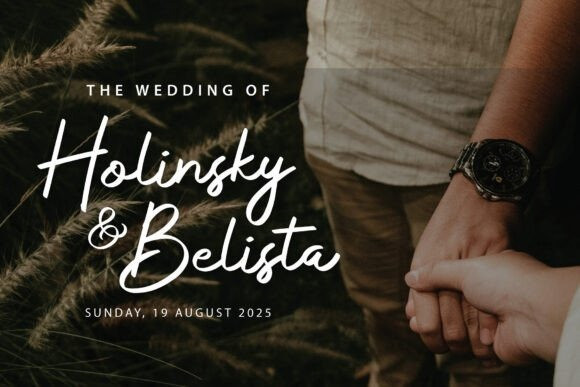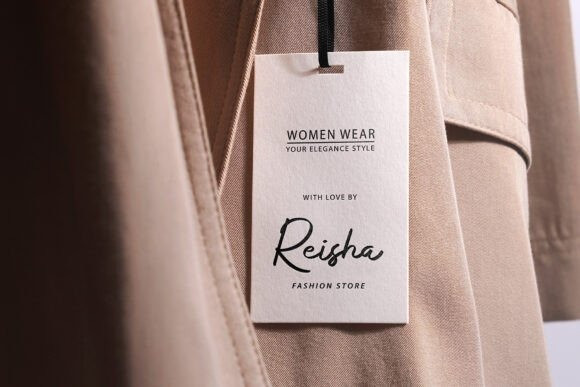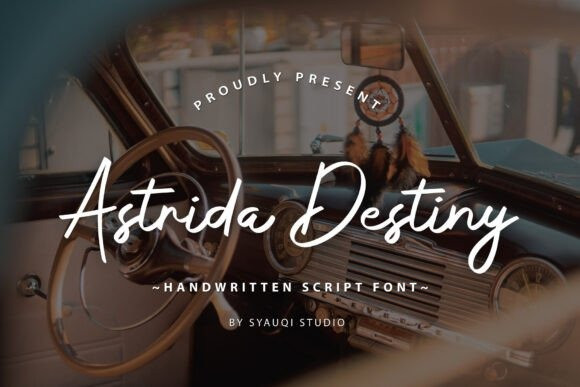
Astrida Destiny Script Font
Astrida Destiny Script Font where timeless elegance meets contemporary sophistication in the realm of script calligraphy fonts. Designed with meticulous attention to detail, Astrida Destiny seamlessly blends fluid, organic strokes with a touch of modernity, creating a typeface that exudes both grace and versatility.
“Astrida Destiny” is crafted to elevate any design project, whether it be wedding invitations, branding materials, elegant signage, or editorial layouts. Its graceful curves and impeccable letterforms lend a sense of refined beauty and sophistication, making it perfect for conveying a sense of luxury and exclusivity.
Ideal for designers, creatives, and businesses seeking to evoke a sense of charm and sophistication, “Astrida Destiny” promises to transform ordinary text into a visual masterpiece, capturing the essence of a serene and captivating paradise in every stroke.